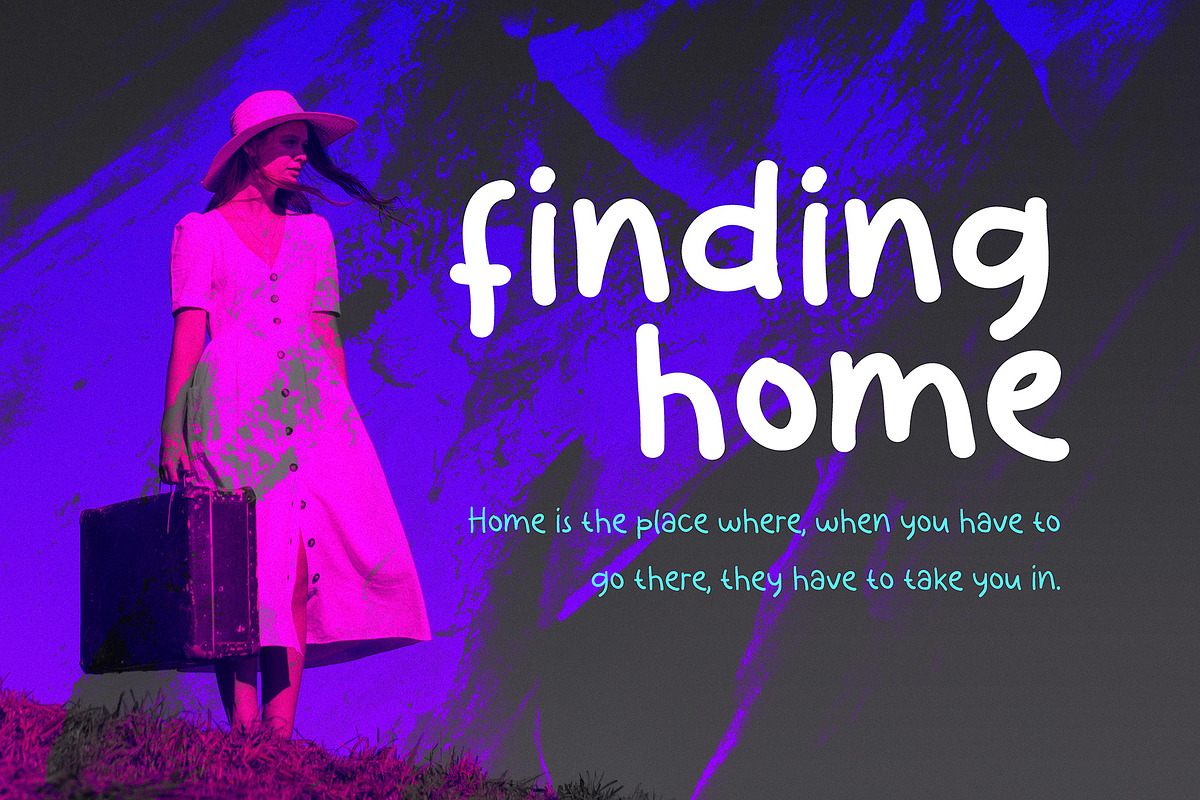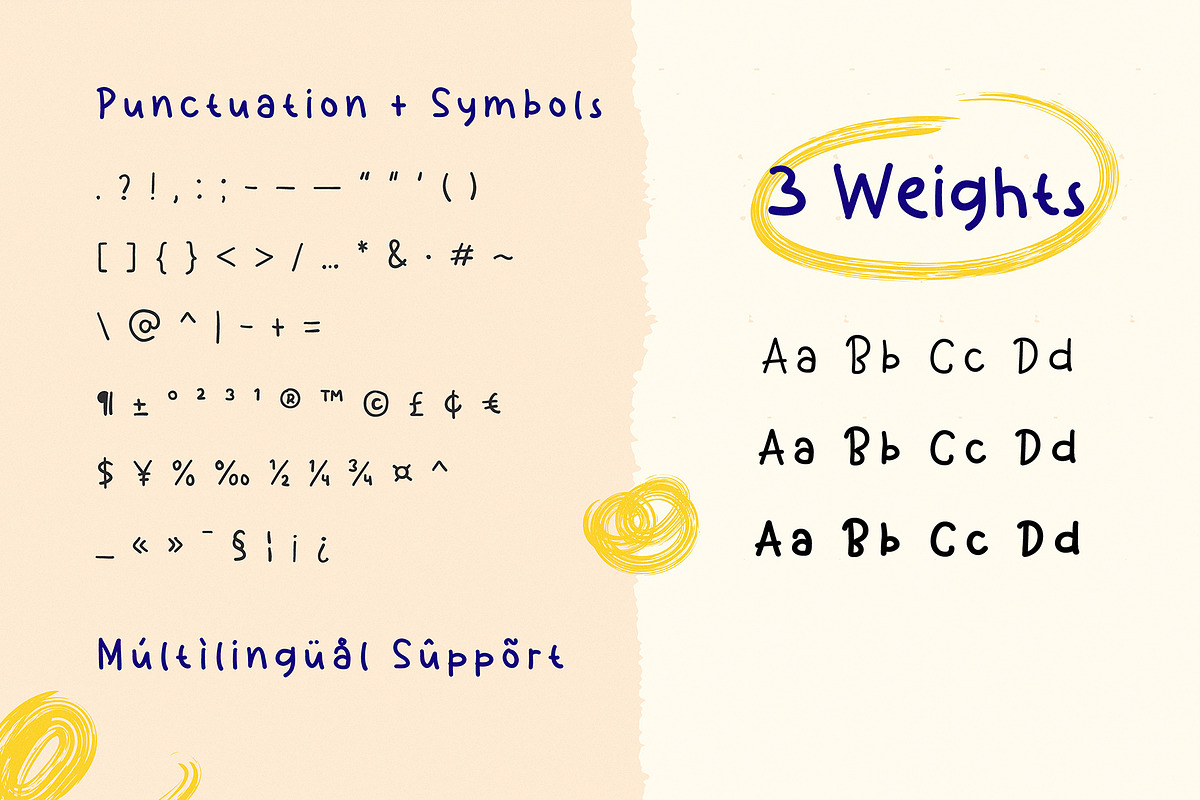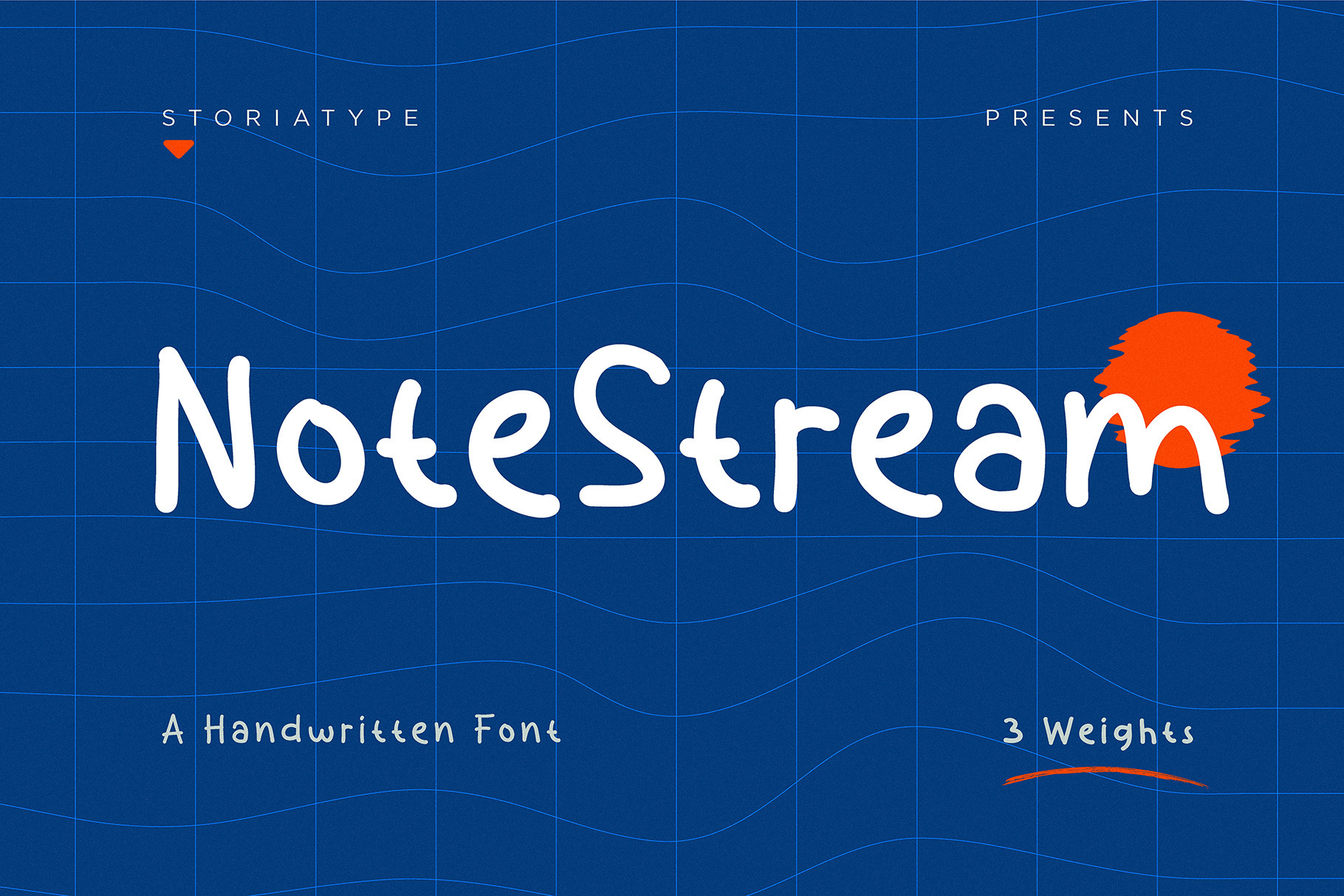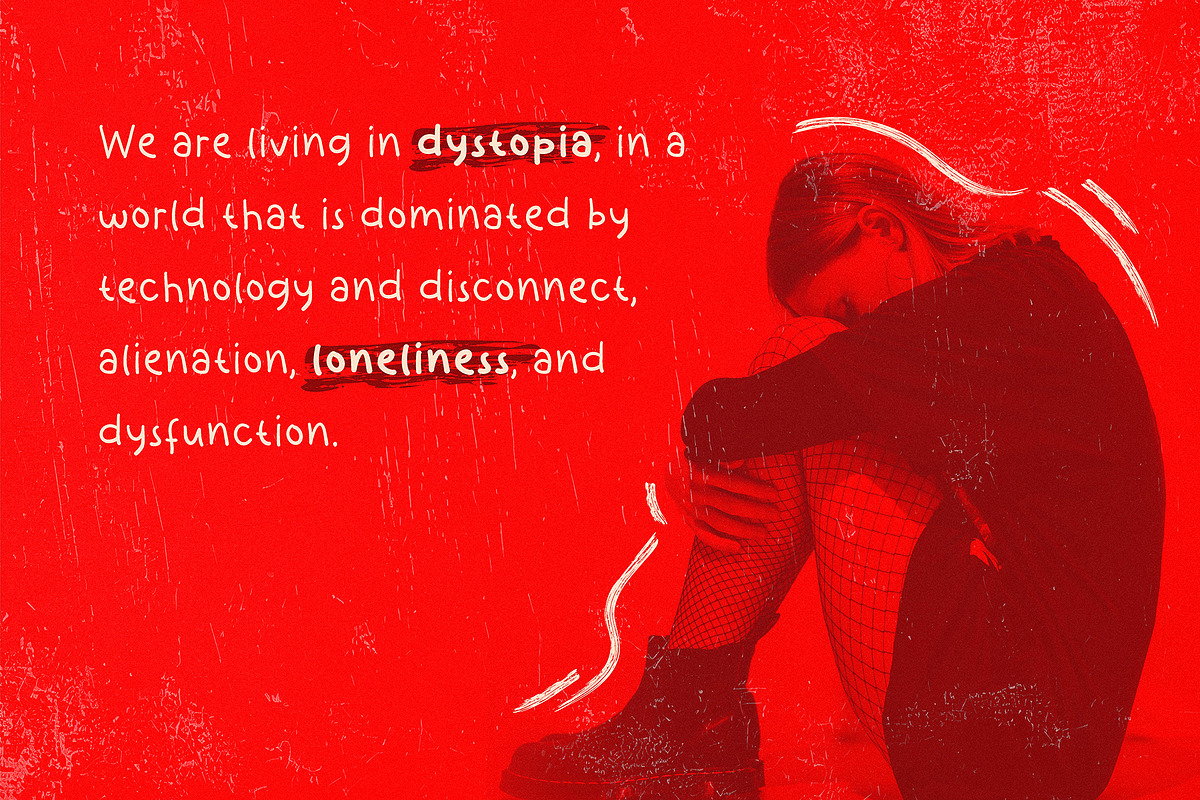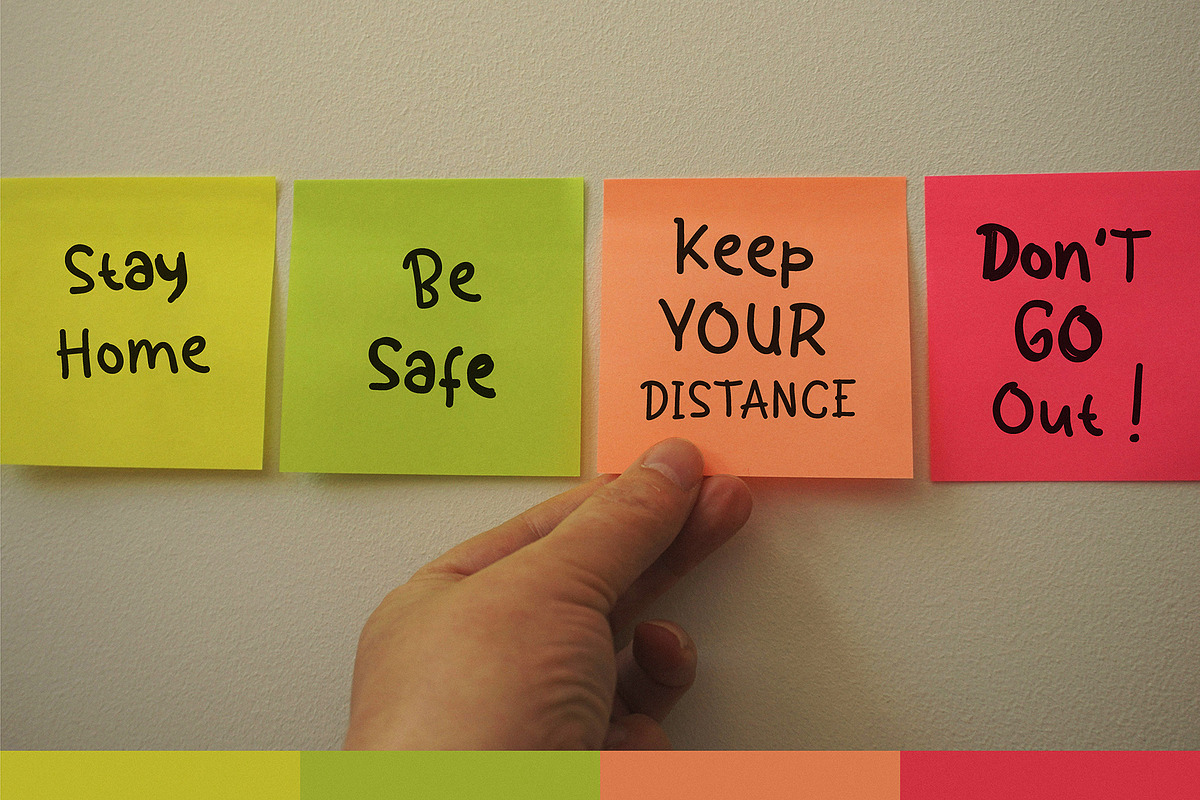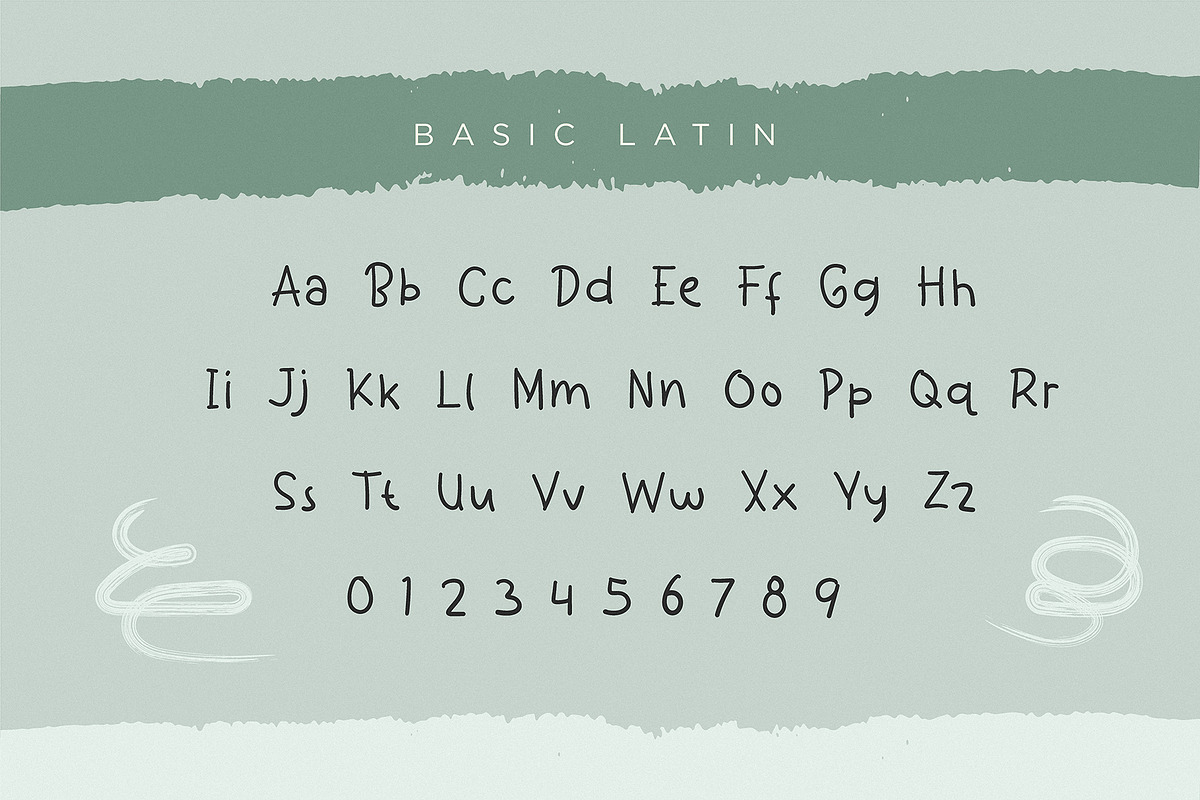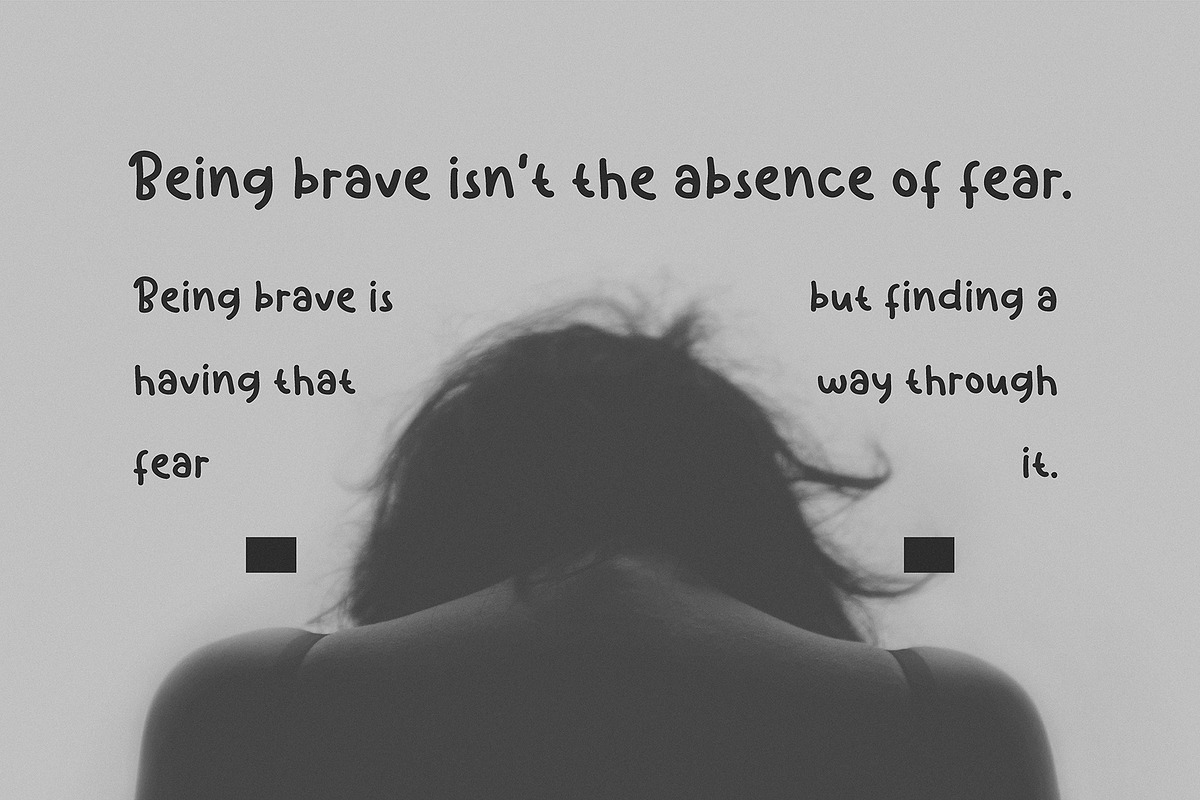
NoteStream - Handwritten Font
Introducing "NoteStream" Handwritten Typeface
Hand-Drawn Aesthetic: The letterforms appear as if they were hand-drawn with a pen or brush. The slightly irregular shapes give it an organic and artistic feel.
Varying Stroke Widths: The strokes of the letters have varying thickness, adding to the playful vibe. Some strokes are thin, while others are thicker, creating visual interest.
Casual and Friendly: This font is not rigid or formal. Instead, it feels friendly, approachable, and relaxed. It would work well for designs that aim to convey a laid-back or informal tone.
Whimsy and Charm: The overall design exudes whimsy—a touch of magic and charm. It’s like a font you’d find in a storybook or on a handwritten sign.
In summary, this font is perfect for projects where you want to infuse a sense of playfulness and creativity. Whether it’s for invitations, posters, or social media graphics, this font adds a delightful touch! 🌟